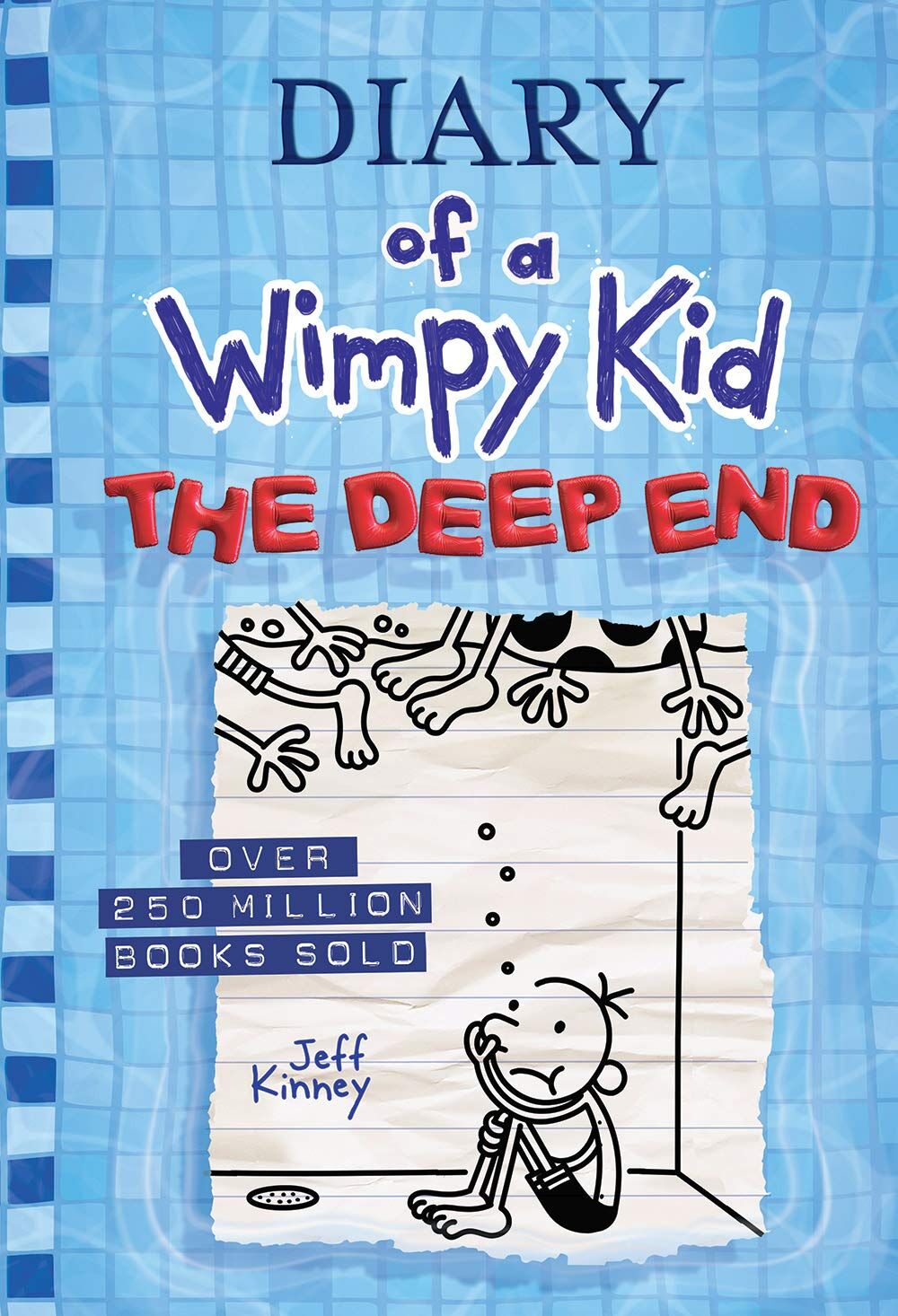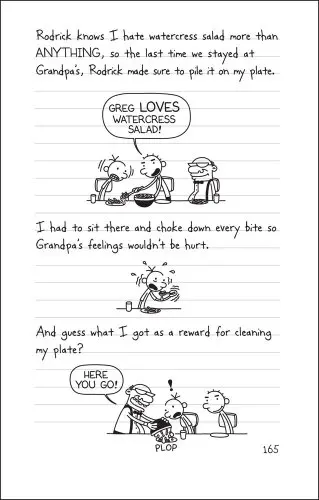
Wimpy Kid Dialogue Font
Wimpy kid dialogue(can't downloaded from any source. 10000 search results for diary+ofa+wimpy+kid.
Wimpy kid dialogue font. Diary of wimpy kid series. Arquivos de fonte disponíveis gratuitamente. The font used in diary of a wimpy kid is coop forged.
To get this font inspect element from wimpy kid club website(in selectable text ),search for font.css click and. I'm curious to know what typefaces the wimpy kid books and movie series uses. Procurar por ordem alfabética, por estilo, por autor ou por popularidade.
Feel free to use it for all of your meme needs! Search results for wimpy kid font, free downloads of wimpy kid fonts at fonts101.com If it's written by rowley,use the rowley's handfont.
It has a humorous and delicate style that will elevate your design projects that include printing & web to a new higher level. Melon is a fun and quirky display font. I ripped the fonts off of the website that i linked to in the description, but not too long after i first posted this a group on reddit who likes to make wimpy kid edits ended up ripping all the assets off the ebooks (which include these fonts with kerning that's more accurately used in the books) awesomedude57.
To get this font inspect element from wimpy kid club website (in selectable text ),search for font.css click and read information and copy the font name (full name of file) to link (ex:wimpykidclub.co.uk/font name here (wimpykiddialogue regular example for font name in css file) )) #3. If your llb is written by greg ,use the wimpy kid font. In the speech bubbles,the dialogue must be in all caps.
96.9k members in the okbubbyretard community. Font download (ttf) | font download (otf) i looked for a diary of a wimpy kid font and couldn't find one, so i took it in to my own hands to make one. When creating an llb,the font in the speech bubbles must be wimpy kid dialogue.
Greg believes this, goes down to make a bowl of cereal, only for frank to yell at him because it's actually 3 in the morning. I know for a fact that the font chicken parts was used for the food props in the long haul 2017 movie. It is used in every single one of the books, and it can be found here:
The last straw • diary of a wimpy kid: Wimpykiddialogue is for the dialogue. There are sixteen books in the diary of a wimpy kid series, and four additional books:
If your project requires a fun/happiness look, then this font is for you. Typography of coop bold by house industries from the typography of coop font collection. The third wheel (diary of a wimpy kid ,book 7)the.pdf.
Wimpykid is for the font used in the writing segments. Does anybody who is a font expert know? Diary of a wimpy kid display font is a fun, cheerful, and handcraft display cartoon typeface.
Myfont regular is rowley's hand, and kongtext is. In the book have two type of font,the main font is used on non capital letter of lower than two,the second font is used if capital letter is +2 the font is is created by jeff kinney text a novel in cartoon is use first font Typography of coop by house industries
Rodrick wakes greg up and tells him that he slept all the way through summer break, but woke up just in time for the first day of school. Wimpy kid dialogue (can't downloaded from any source. Long haul (diary of a wimpy kid, book 9).pdf.
The last straw is a novel written by american author and cartoonist jeff kinney, the third book in the diary of a wimpy kid series. Click on specimen to edit. This is a cartoon font that we recommend using for the following purposes of work such as logos, invitations, branding.
The font was made with calligraphr.